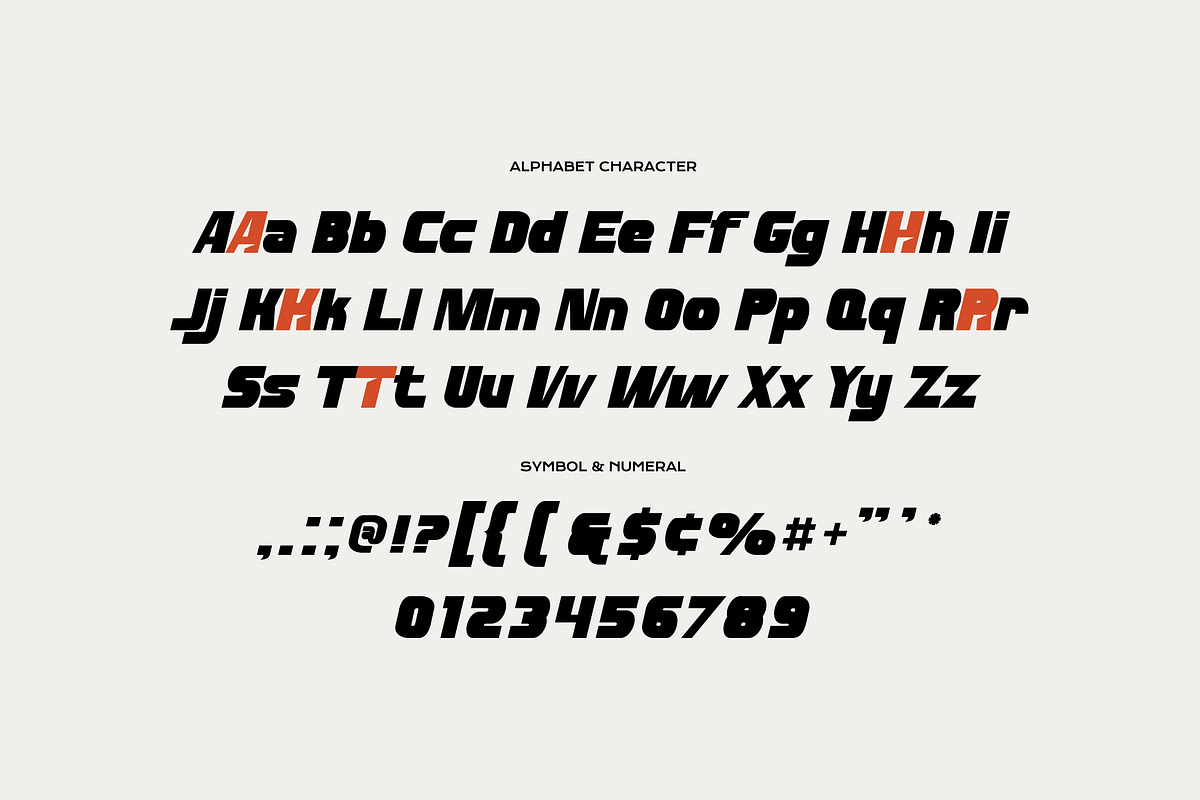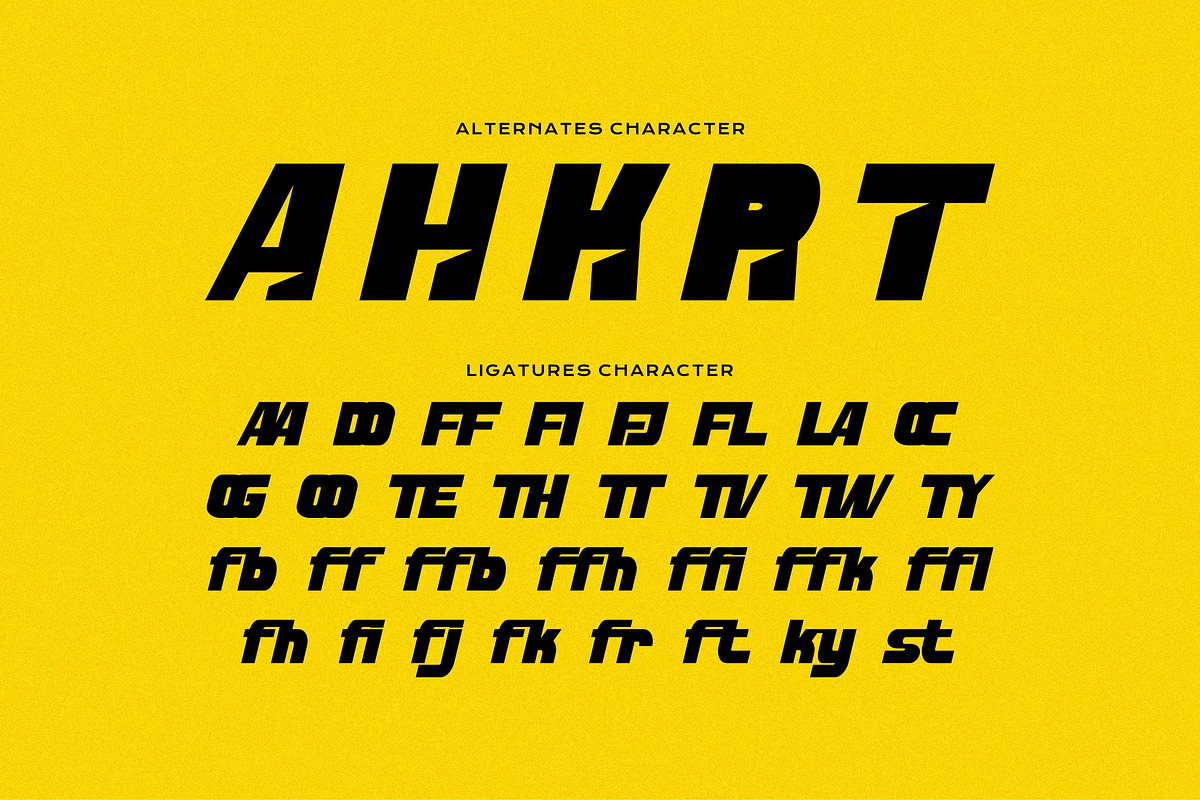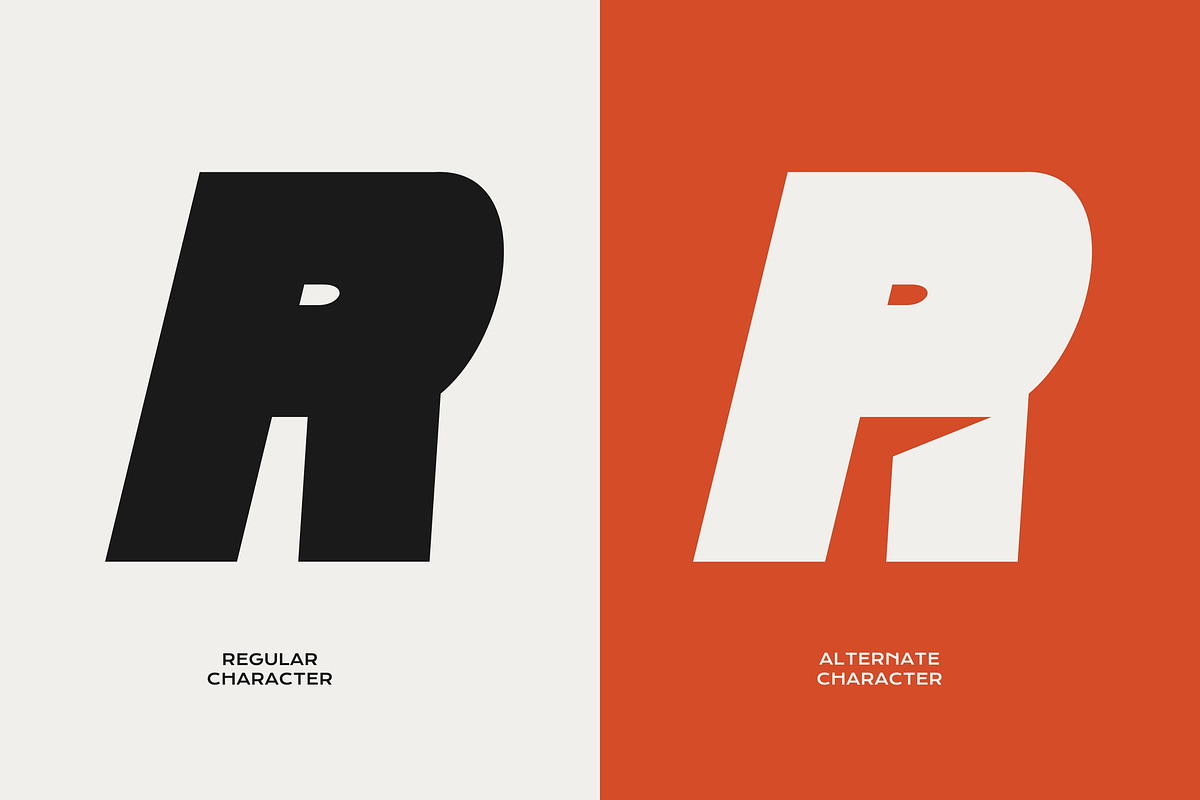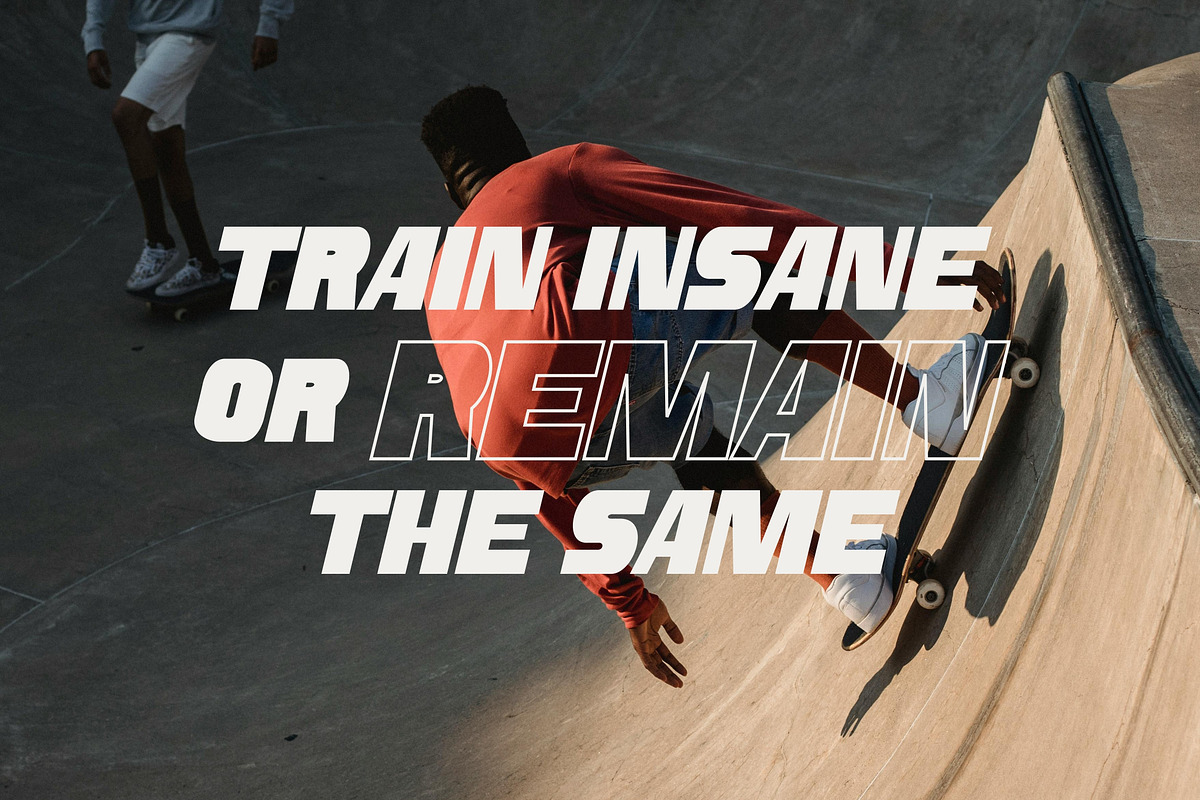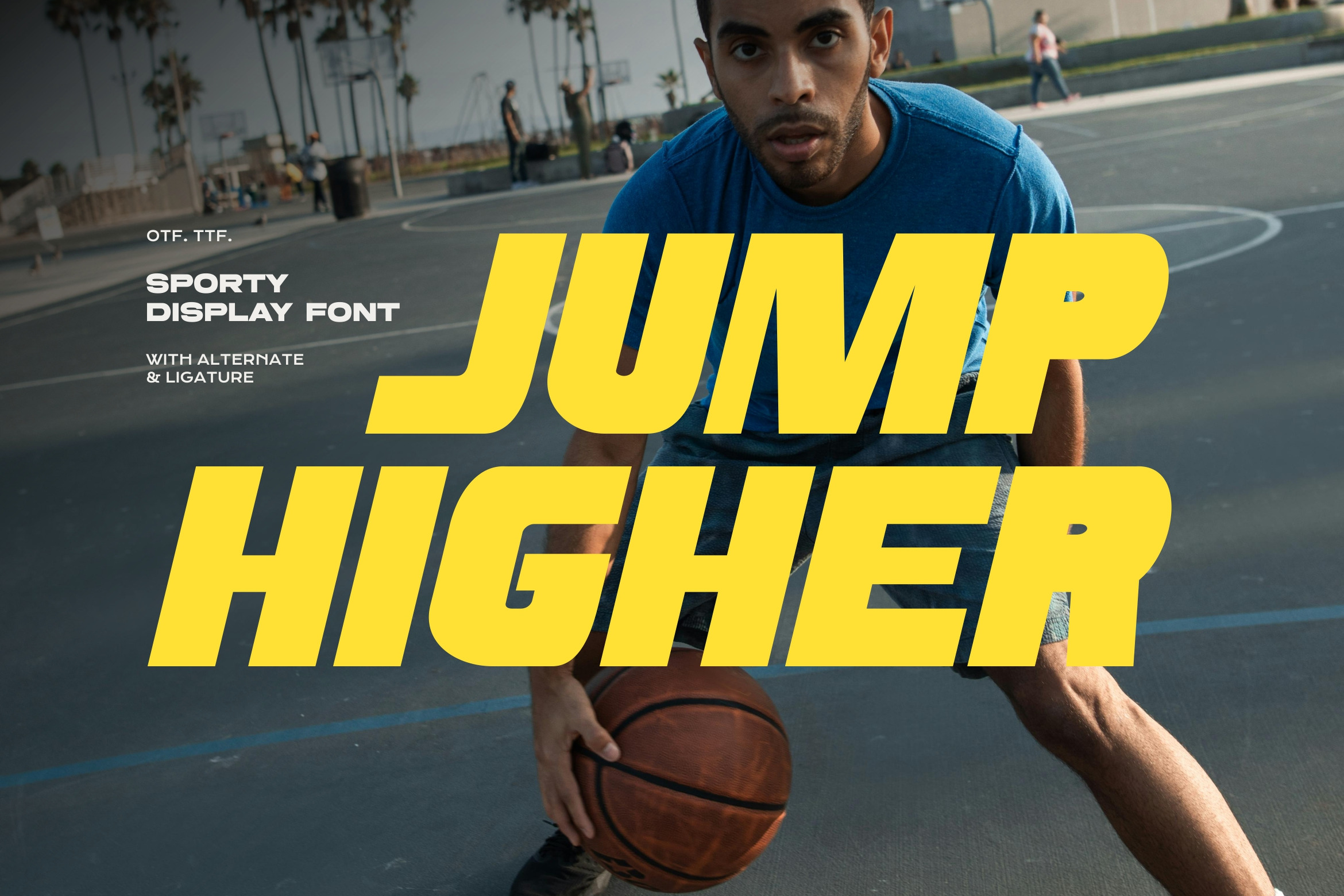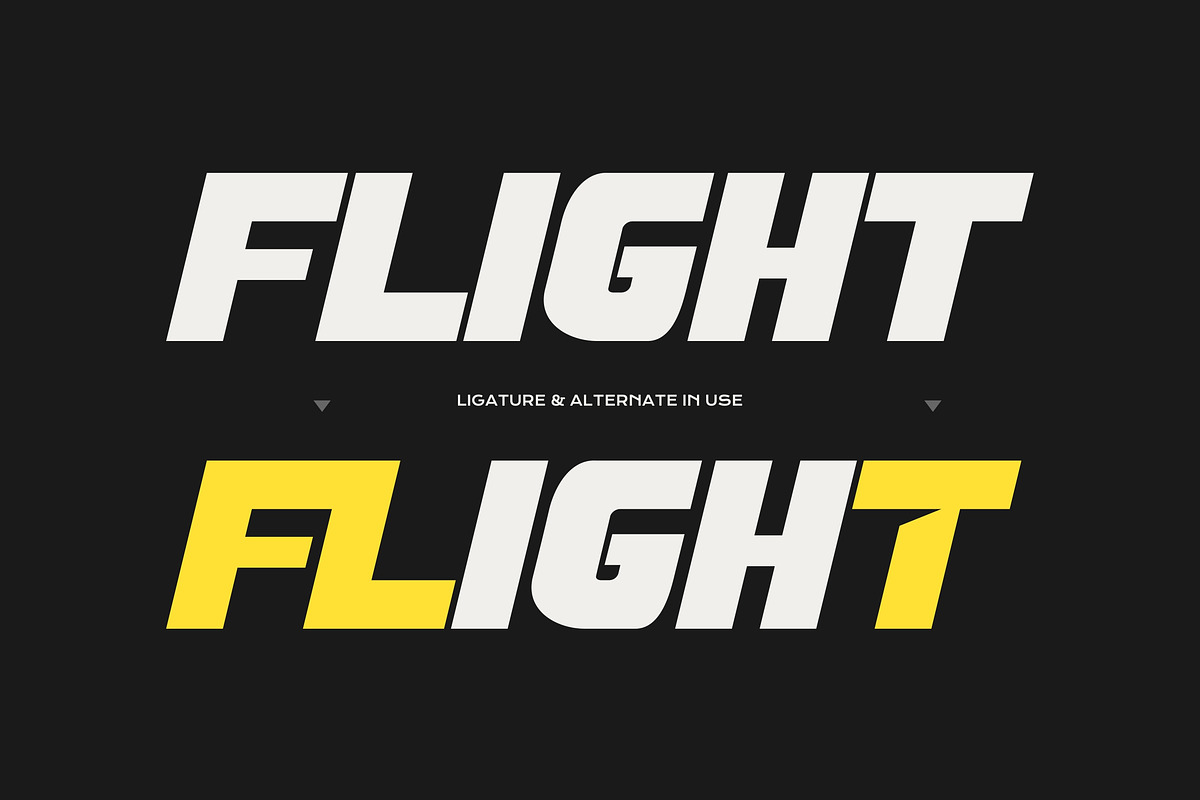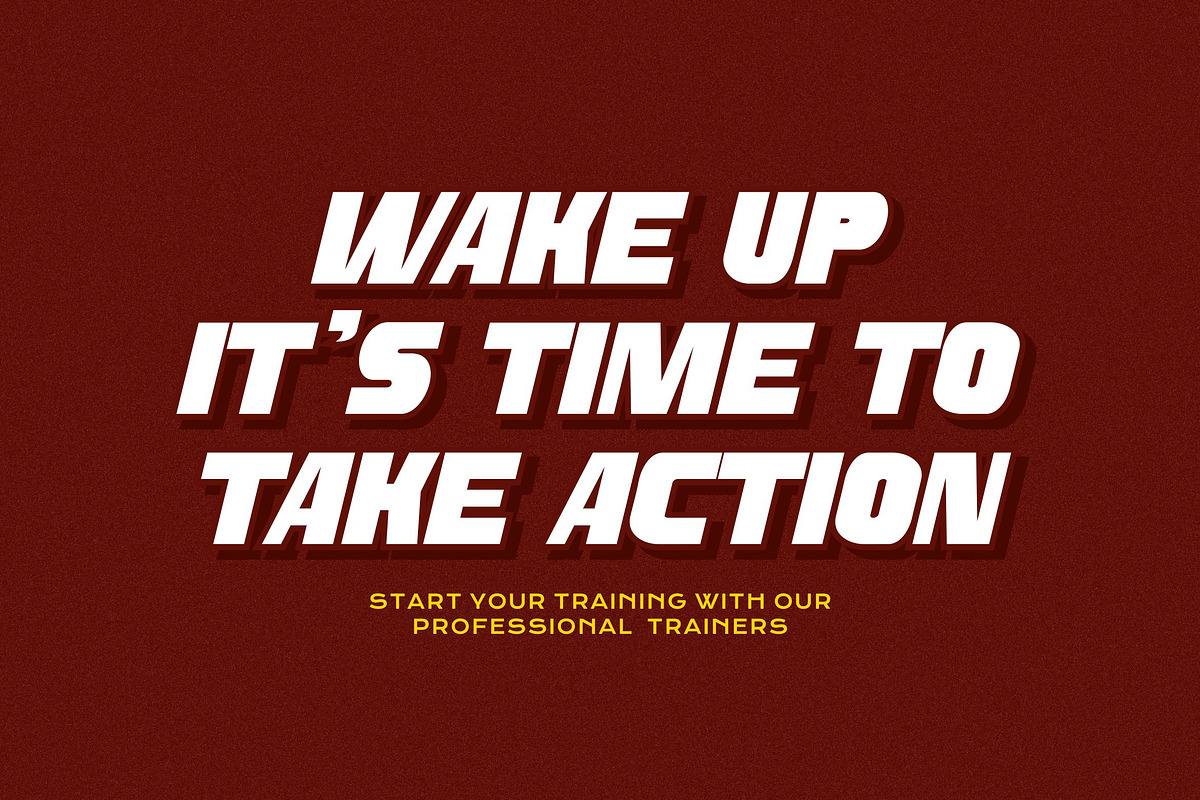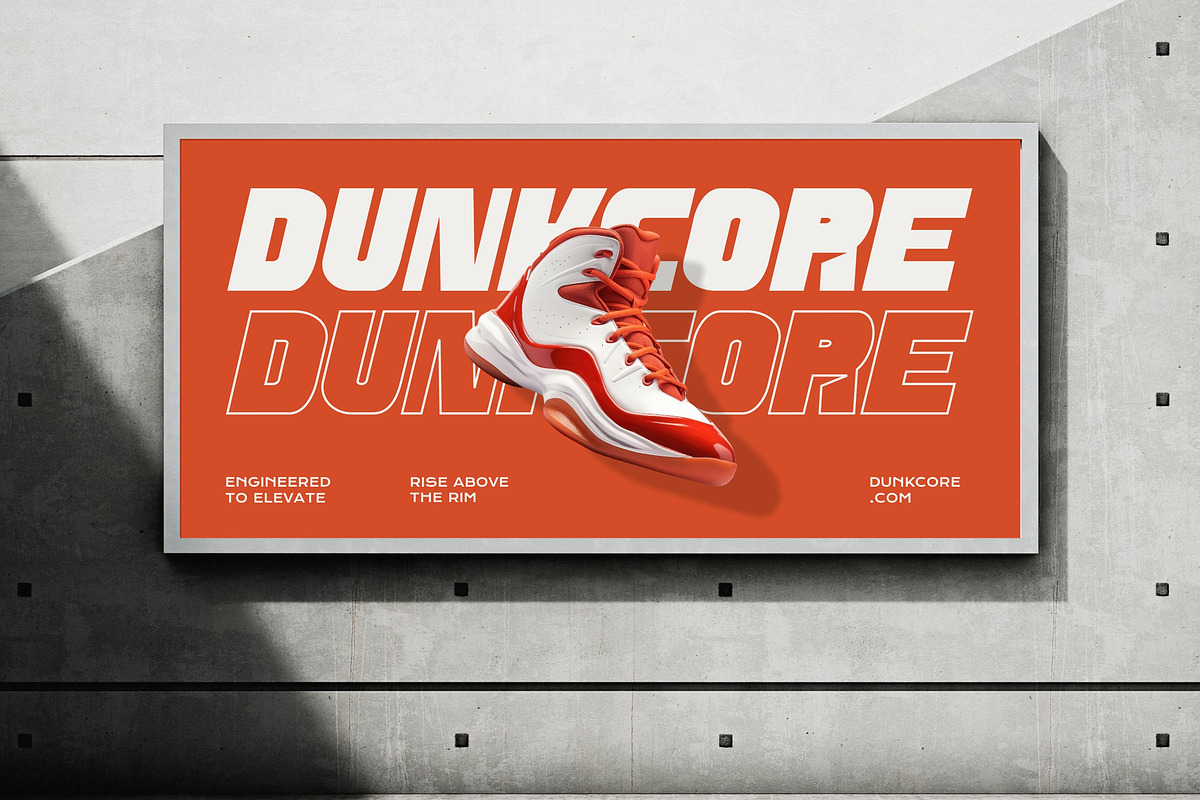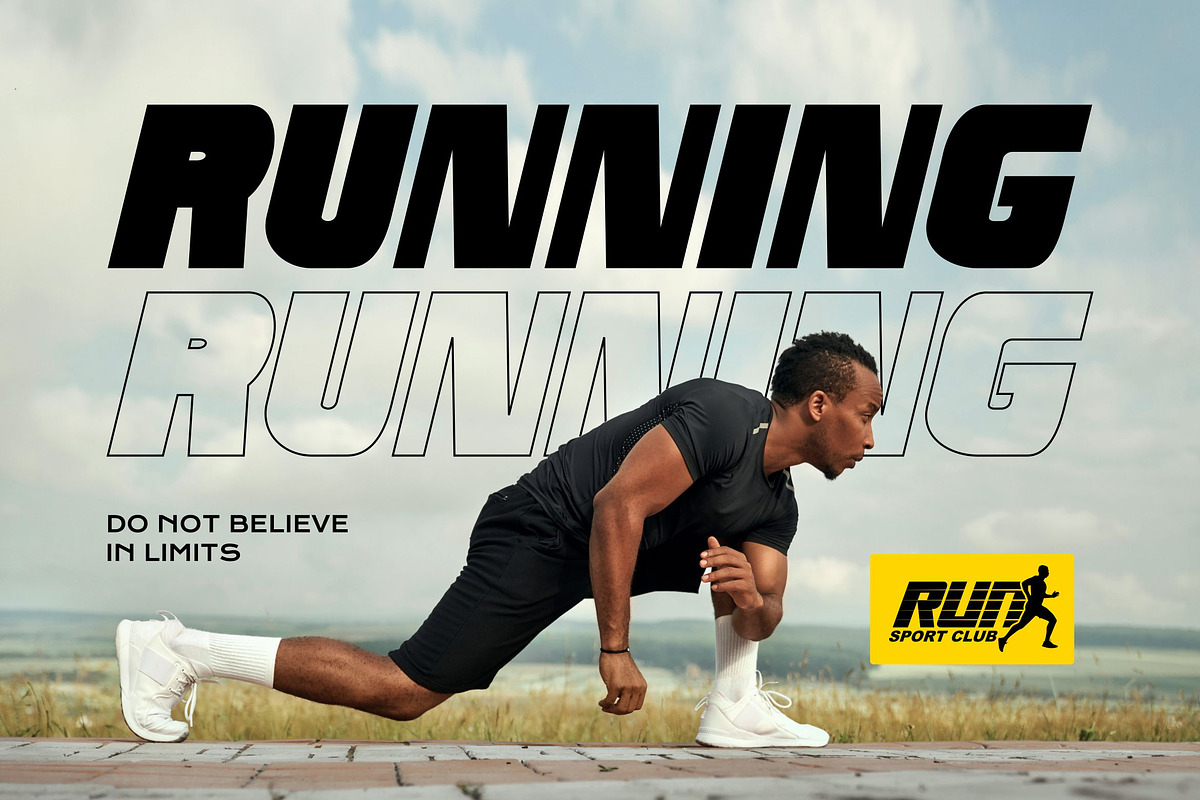
Jump Higher - Sport Display Font
Jump Higher is a high energy, sporty display typeface designed to convey movement, speed, and power. Its heavy weight and aggressive italic slant make it perfect for branding that needs to look "fast" and "strong."
Unleash the energy of your next design project with this bold, athletic display font. Engineered for impact, this typeface features thick, slanted letterforms that embody the spirit of competitive sports and urban street style.
The font stands out with its unique alternate characters and custom ligatures, allowing you to create distinctive, sharp edged typography. Whether you are designing for a professional sports team, a fitness brand, or modern streetwear, its commanding presence ensures your message is never missed.
Bold Athletic Aesthetic: Heavy strokes and a sharp italicized slant for maximum momentum. Perfect for headlines, sports, jerseys, logos, posters, and esports branding.
- Uppercase and Lowecase Characters.
- Numerals and Punctuations.
- Alternates and Ligatures.
- Multilingual Support.